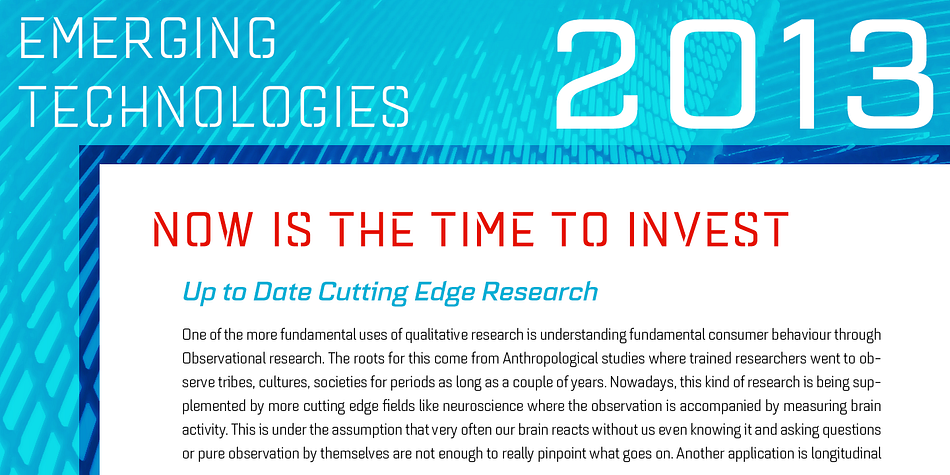
Quarca
Quarca is a sans serif font family. This typeface has thirty-six styles and was published by Insigne Design.
Quarca
Don
Quarca has been cautiously optimized to engage the reader
Achieving an attractive balance to its sturdy design, the open forms of this "rounded square" geometric sans--together with a tall x-height--make the font legible even when using the compact widths.
This high-impact typeface definitely doesn
These compact widths, with their raw heart and strength, are perfect for callouts, while the extended widths provide you with the platform for a punchy and extremely efficient headline.
Quarca’s masculine power runs strong across the page with bold self-assurance and a raw energy that courses through its thick veins.
Don’t think the continuous, smooth geometry of this semi-modular face is captivity chained to the grid, though. Quarca has been cautiously optimized to engage the reader’s eye. Achieving an attractive balance to its sturdy design, the open forms of this “rounded square” geometric sans—together with a tall x-height—make the font legible even when using the compact widths. This high-impact typeface definitely doesn’t sacrifice versatility for style.
These compact widths, with their raw heart and strength, are perfect for callouts, while the extended widths provide you with the platform for a punchy and extremely efficient headline. The font has a thinner weight and transcends to an intense bold. The face’s geometric or technological construction also tends to make it right at home on the web.
The family consists of 36 fonts—six weights plus italics. Where Quarca truly stands out, though, is its wide number of OpenType typographic choices and optional glyphs, allowing you to design your piece with a personal, one-of-a-kind variant touch. These variations consist of Experimental Capitals, Angled Capital Terminals, and “Future Stencil.” In all, you can find more than one hundred of these alternate glyphs.
Quarca is well-suited for anything you are able to throw at it. Devised for today’s multi-disciplined designer, this clear and infinitely versatile family provides tremendous value to your toolbox.